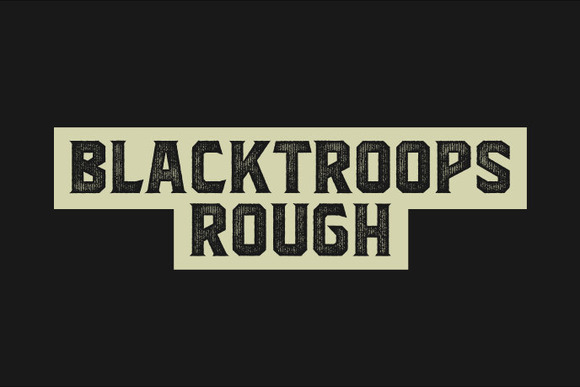
Blacktroops Rough Font: A Grunge Distressed Typeface for Creative Projects
In the world of typography, fonts play a crucial role in conveying messages, expressing emotions, and creating visual identities. Among the numerous font families available, Blacktroops Rough stands out as a unique and versatile typeface. This article will explore the features, uses, and benefits of Blacktroops Rough, a grunge distressed version from the Blacktroops family.
What is Blacktroops Rough?
Blacktroops Rough is a grunge distressed version of the Blacktroops font family. It is characterized by its rough, textured, and worn appearance, which gives it a distinctive and eye-catching look. This typeface is designed to add a touch of ruggedness and edginess to any design project.
Features of Blacktroops Rough
Blacktroops Rough boasts several features that make it an attractive choice for designers and artists. Some of its key features include:
- Grunge Distressed Texture: The font’s rough, textured appearance gives it a worn and aged look.
- Highly Legible: Despite its distressed texture, Blacktroops Rough remains highly legible, making it suitable for use in various design projects.
- Versatile: This typeface can be used for a wide range of applications, from headings and logos to posters and book covers.
Uses of Blacktroops Rough
Blacktroops Rough is a versatile typeface that can be used for various purposes, including:
- Headings and Titles: Use Blacktroops Rough to create bold and eye-catching headings and titles for your designs.
- Logos and Branding: The font’s unique texture and distressed appearance make it an excellent choice for logos and branding materials.
- Posters and Flyers: Blacktroops Rough is perfect for creating attention-grabbing posters and flyers for events, promotions, and products.
- Book Covers and Magazines: Use this typeface to create striking book covers and magazine titles that stand out on crowded shelves.
- Mugs, Bags, and Merchandise: Blacktroops Rough can be used to create unique and stylish designs for mugs, bags, and other merchandise.
- Newspapers and Newsletters: The font’s high legibility and distressed texture make it suitable for use in newspapers and newsletters.
- Invitations and Cards: Use Blacktroops Rough to create distinctive and memorable invitations and cards for special occasions.
Benefits of Using Blacktroops Rough
Using Blacktroops Rough in your design projects offers several benefits, including:
- Unique Visual Identity: The font’s distressed texture and rough appearance help create a unique visual identity for your brand or design.
- Attention-Grabbing: Blacktroops Rough is designed to grab attention and make a statement, making it perfect for use in advertising and promotional materials.
- Flexibility: This typeface can be used in various design projects, from digital media to print materials.
- Time-Saving: With Blacktroops Rough, you can create professional-looking designs quickly and efficiently, saving you time and effort.
Tips for Using Blacktroops Rough
To get the most out of Blacktroops Rough, consider the following tips:
- Experiment with Colors: Try pairing Blacktroops Rough with different colors to create striking contrasts and visual interest.
- Mix and Match Fonts: Combine Blacktroops Rough with other fonts to create visually appealing typography and add depth to your designs.
- Pay Attention to Legibility: While Blacktroops Rough is highly legible, make sure to test it in different contexts to ensure it remains readable.
In conclusion, Blacktroops Rough is a versatile and attention-grabbing typeface that can add a touch of ruggedness and edginess to any design project. With its grunge distressed texture, high legibility, and flexibility, this font is perfect for use in various applications, from headings and logos to posters and book covers. By incorporating Blacktroops Rough into your design workflow, you can create unique and memorable designs that stand out in a crowded market.